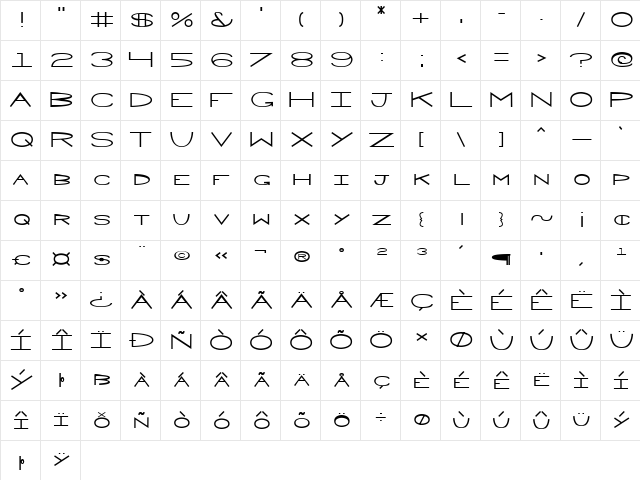
Penne Regular
Design Context for Penne Typeface
Penne offers clean, dependable letterforms without strong stylistic allegiance, making it a practical choice for designers who need flexibility.
Pro Tip: Use Penne in both headline and body roles to test its range before committing to a single application.